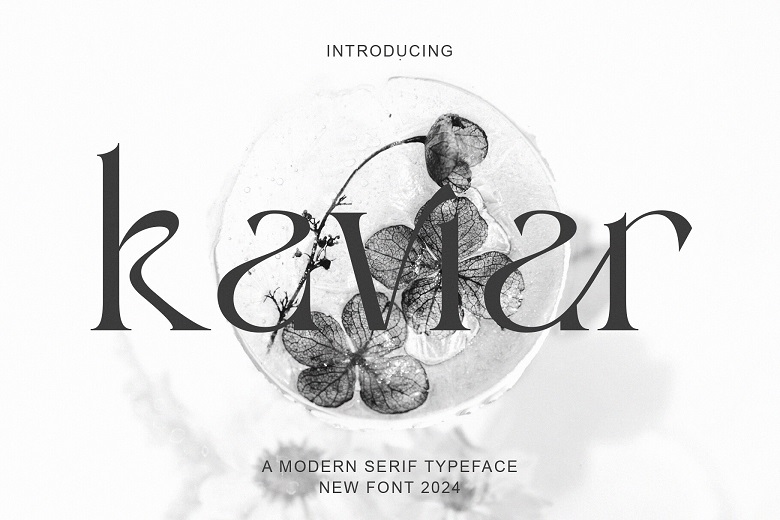
Kaviar Font
Introducing Kaviar : It is a short description which we can describe as an elegant and rather new serif typeface. As is evident by it’s sleek design, Kaviar provides an elegant and clean element to your projects such as websites, minimal and modern logos, company branding/portrayals, use of social media quotes and text, wedding invitations and much more!
Kaviar consists of elegant standard capital letters A to Z with ligatures as well as the alternates, it become rather effective sans serif font that can be used for large-scale projects if necessary. This font is PUA encoded which implies that every single one of the fantastic glyphs and ligatures is at your fingertips!
Kaviar Serif Font